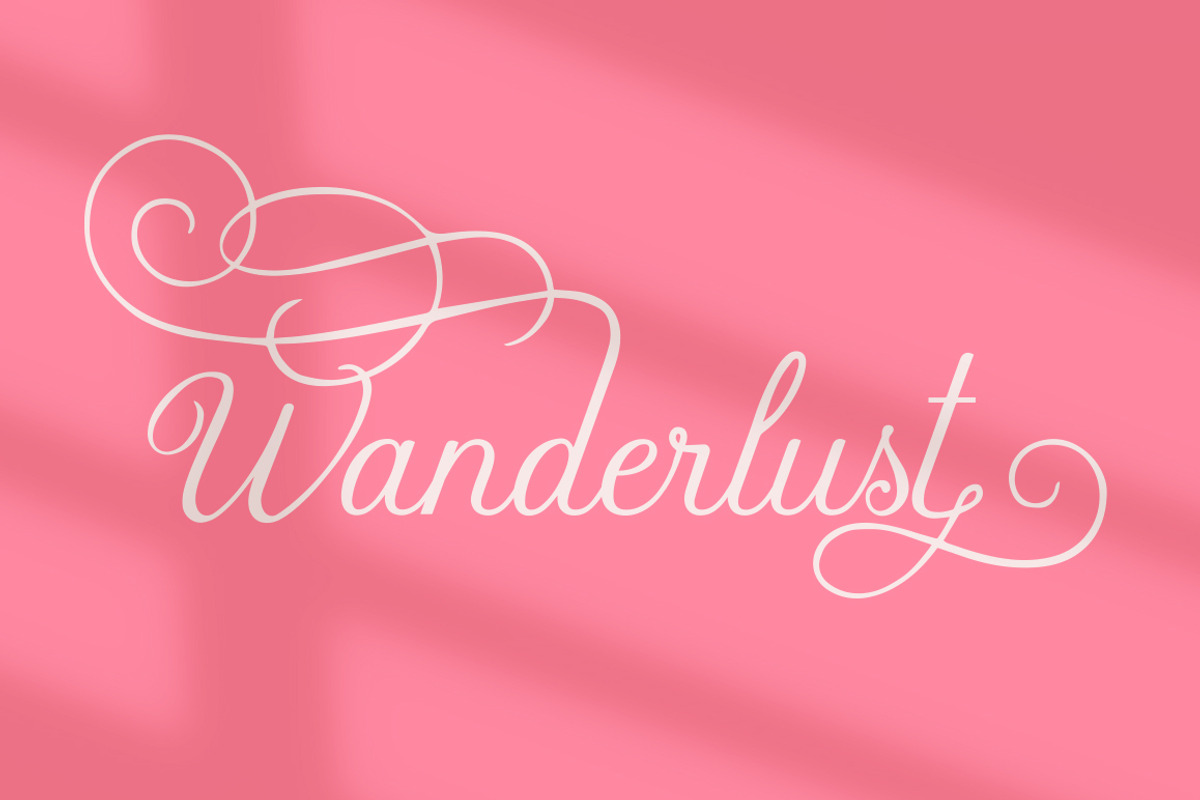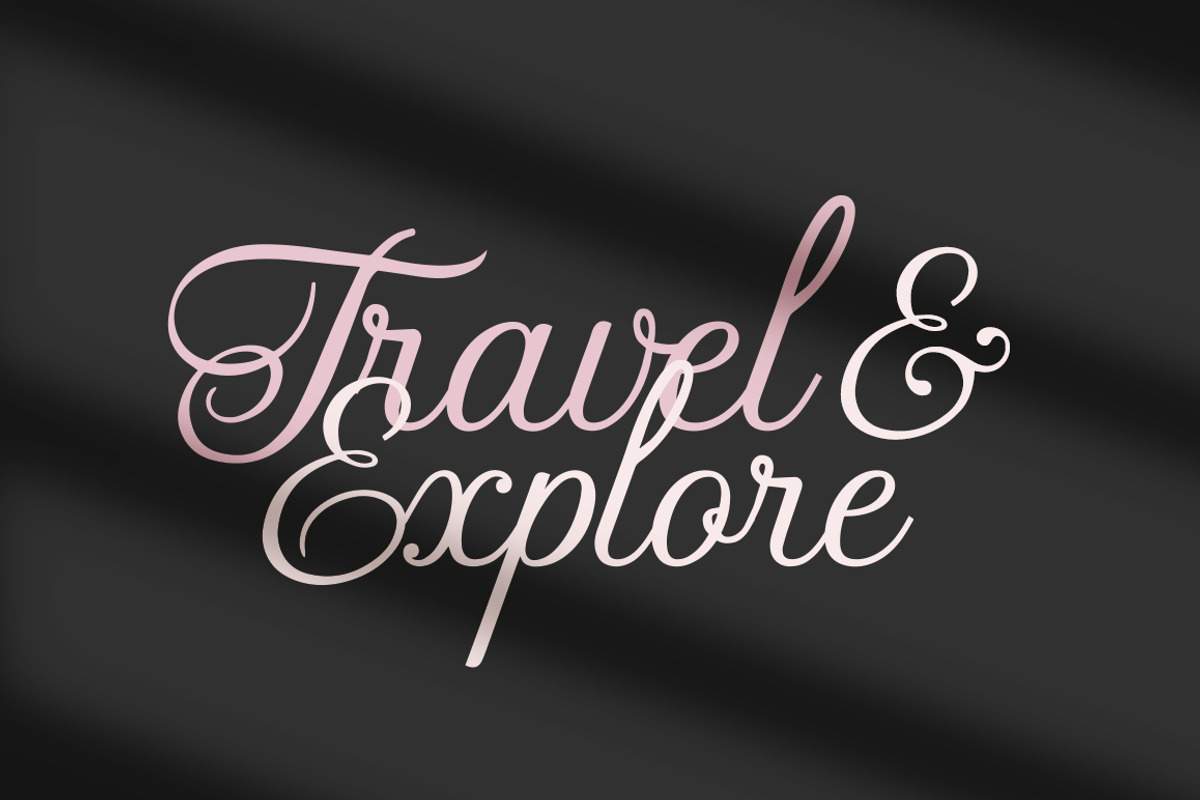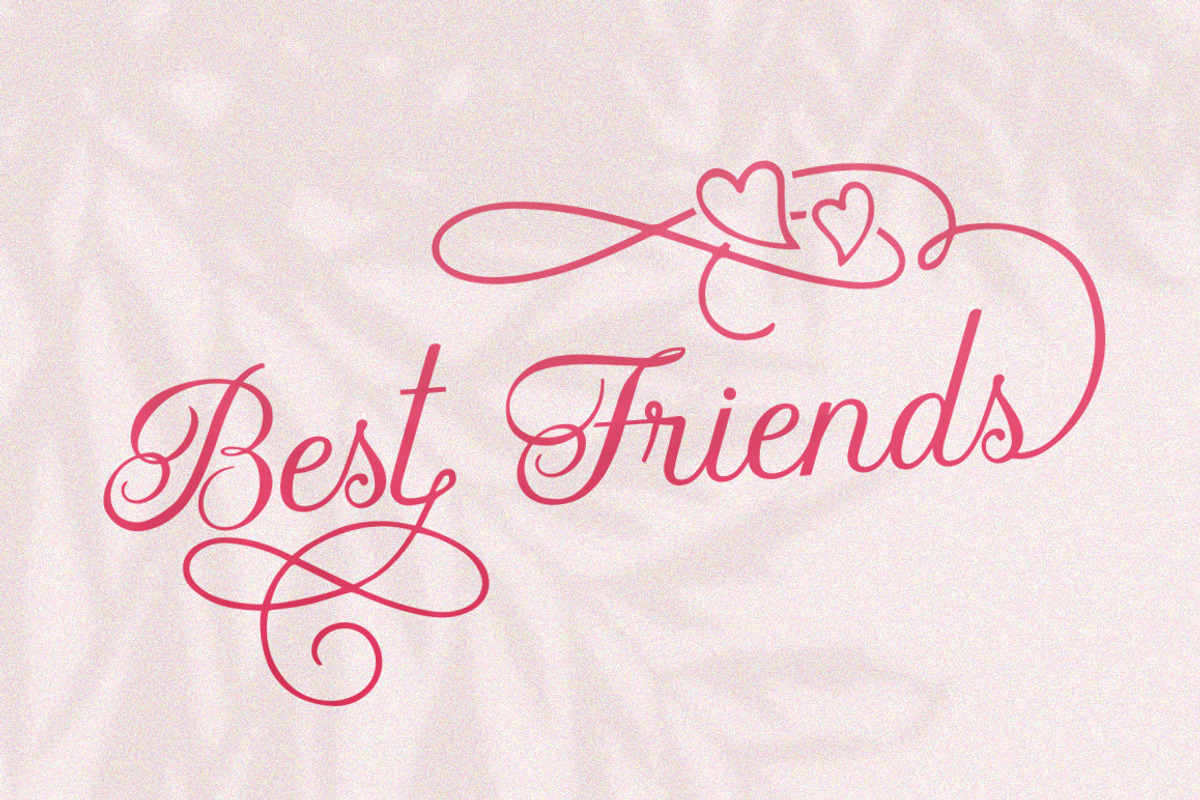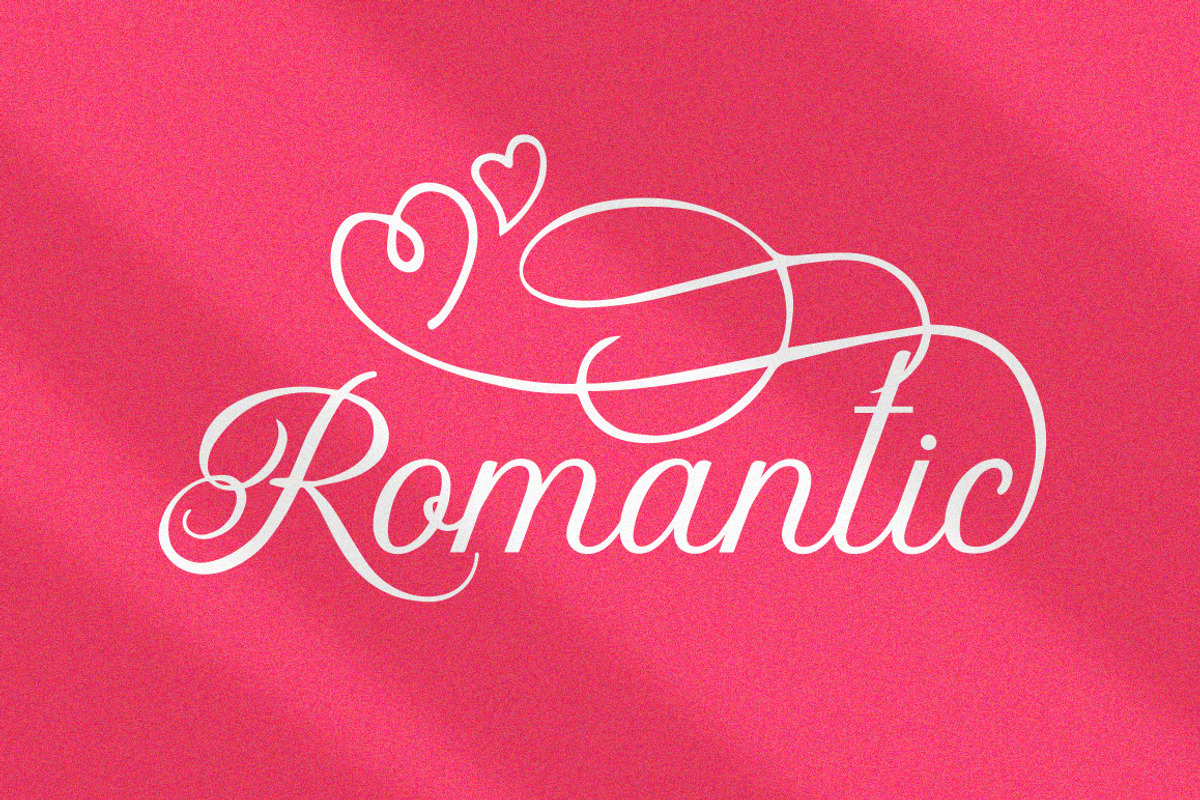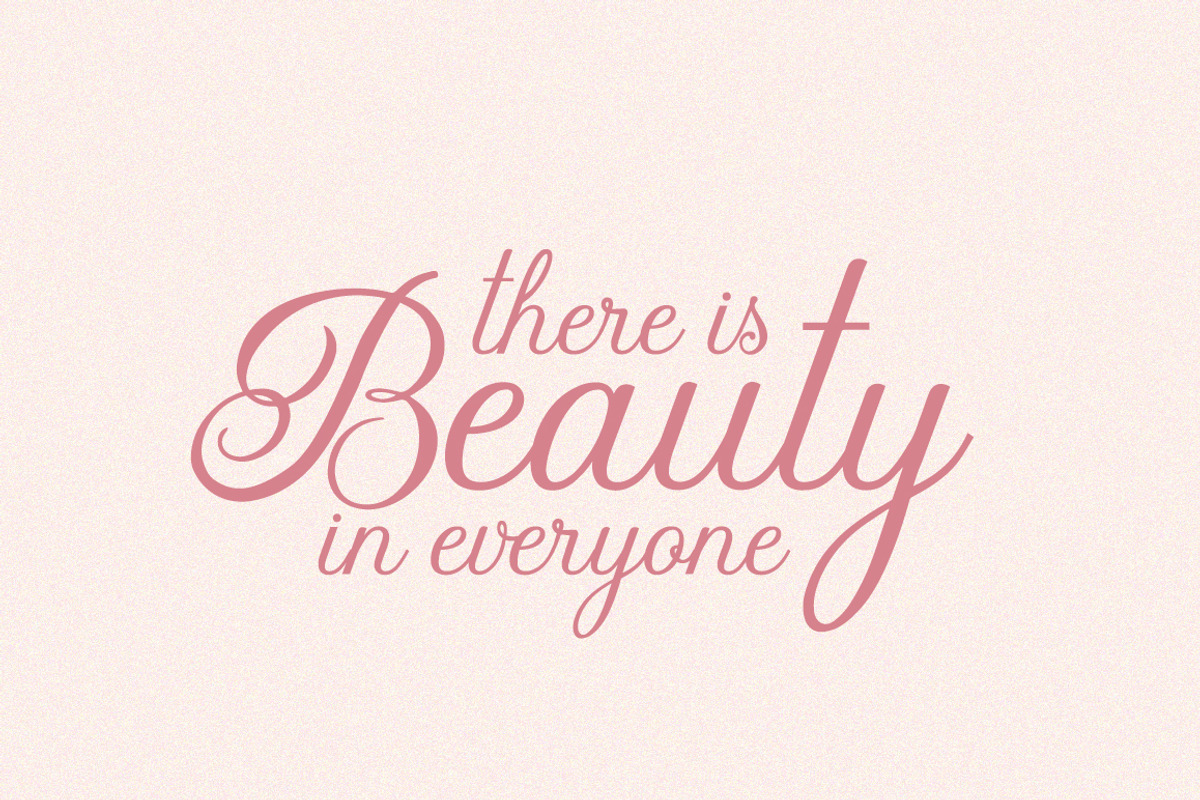
Just Hello Script Font
Why Just Hello Script Font is worth a look
Just Hello Script Font by Salt & Pepper Designs fits naturally into Branding, posters, packaging, typography.